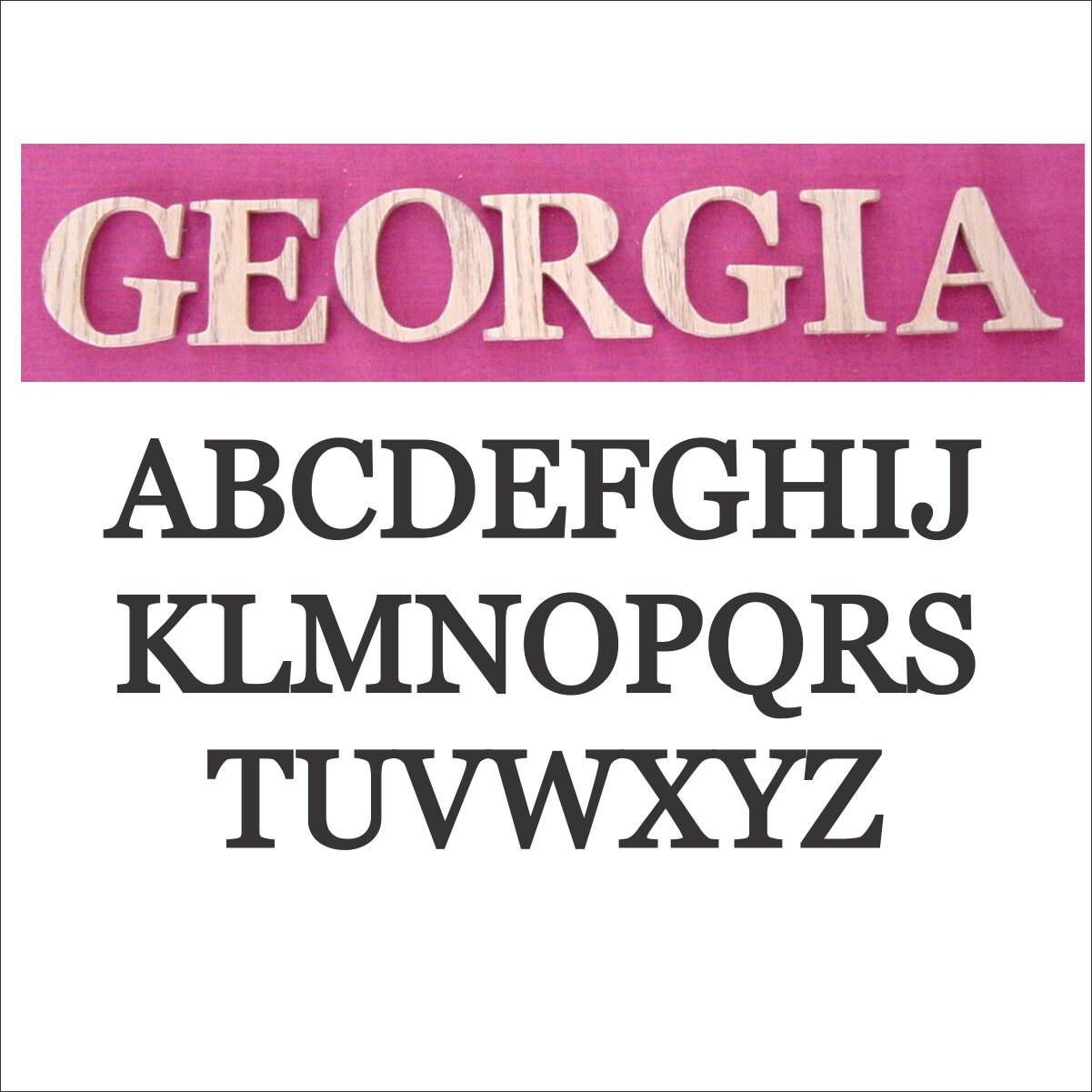
Georgia Font Example . Georgia is a cross between regal and casual style and works well almost anywhere as a headline. Dive in and discover some great alternatives to choose from that demonstrate the same charm and legible qualities as the georgia. It's all a matter of exercising some taste but some good combinations with georgia in my experience are helvetica, helvetica neue, arial (purists will tell you no, but you've got to be. Examples of georgia in use. Below you will find 16 fonts like georgia. Georgia is a transitional serif typeface designed by matthew carter and released in 1996 through microsoft. Four basic styles, designed by matthew carter and hinted by tom rickner in 1993, were released by microsoft in 1996 as part of the core fonts for the web collection. Since georgia is a “web safe”.
Dive in and discover some great alternatives to choose from that demonstrate the same charm and legible qualities as the georgia. It's all a matter of exercising some taste but some good combinations with georgia in my experience are helvetica, helvetica neue, arial (purists will tell you no, but you've got to be. Since georgia is a “web safe”. Georgia is a cross between regal and casual style and works well almost anywhere as a headline. Below you will find 16 fonts like georgia. Examples of georgia in use. Four basic styles, designed by matthew carter and hinted by tom rickner in 1993, were released by microsoft in 1996 as part of the core fonts for the web collection. Georgia is a transitional serif typeface designed by matthew carter and released in 1996 through microsoft.
Georgia Font Example Since georgia is a “web safe”. Dive in and discover some great alternatives to choose from that demonstrate the same charm and legible qualities as the georgia. Below you will find 16 fonts like georgia. Georgia is a transitional serif typeface designed by matthew carter and released in 1996 through microsoft. Georgia is a cross between regal and casual style and works well almost anywhere as a headline. It's all a matter of exercising some taste but some good combinations with georgia in my experience are helvetica, helvetica neue, arial (purists will tell you no, but you've got to be. Examples of georgia in use. Four basic styles, designed by matthew carter and hinted by tom rickner in 1993, were released by microsoft in 1996 as part of the core fonts for the web collection.
Bold Font Georgia Font Example Georgia is a cross between regal and casual style and works well almost anywhere as a headline. Four basic styles, designed by matthew carter and hinted by tom rickner in 1993, were released by microsoft in 1996 as part of the core fonts for the web collection. Since georgia is a “web safe”. Dive in and discover some great alternatives. Georgia Font Example.
Font Georgia Font Example Examples of georgia in use. Below you will find 16 fonts like georgia. It's all a matter of exercising some taste but some good combinations with georgia in my experience are helvetica, helvetica neue, arial (purists will tell you no, but you've got to be. Georgia is a cross between regal and casual style and works well almost anywhere as. Georgia Font Example.
Font Text Effect and Logo Design Font Georgia Font Example Georgia is a cross between regal and casual style and works well almost anywhere as a headline. Georgia is a transitional serif typeface designed by matthew carter and released in 1996 through microsoft. Four basic styles, designed by matthew carter and hinted by tom rickner in 1993, were released by microsoft in 1996 as part of the core fonts for. Georgia Font Example.
Luxurious Serif font Extra (134188) Other Font Bundles Georgia Font Example Examples of georgia in use. It's all a matter of exercising some taste but some good combinations with georgia in my experience are helvetica, helvetica neue, arial (purists will tell you no, but you've got to be. Four basic styles, designed by matthew carter and hinted by tom rickner in 1993, were released by microsoft in 1996 as part of. Georgia Font Example.
free font Georgia Font Example Georgia is a cross between regal and casual style and works well almost anywhere as a headline. Four basic styles, designed by matthew carter and hinted by tom rickner in 1993, were released by microsoft in 1996 as part of the core fonts for the web collection. Below you will find 16 fonts like georgia. Examples of georgia in use.. Georgia Font Example.